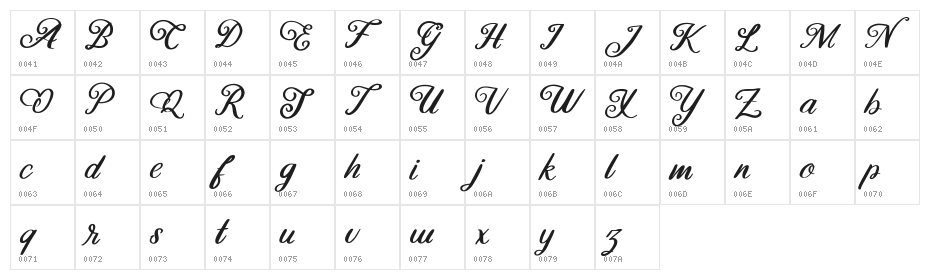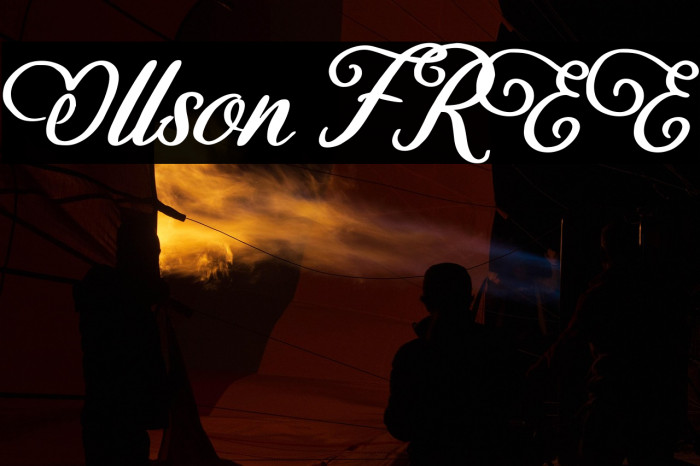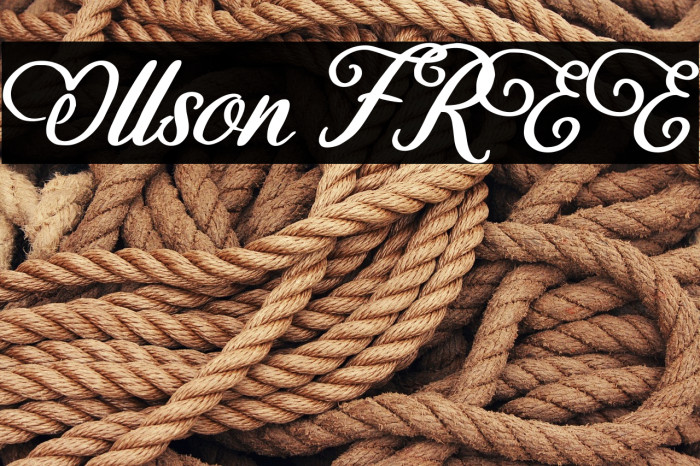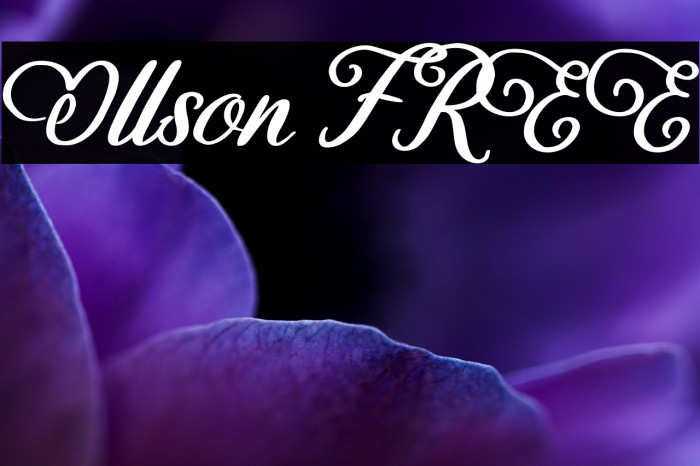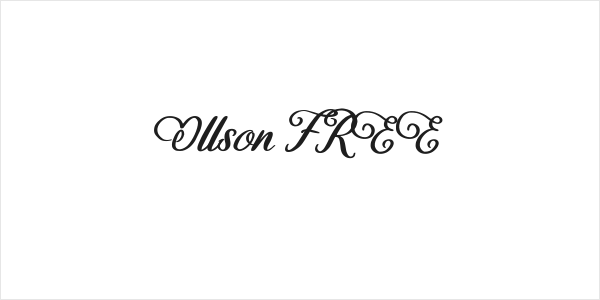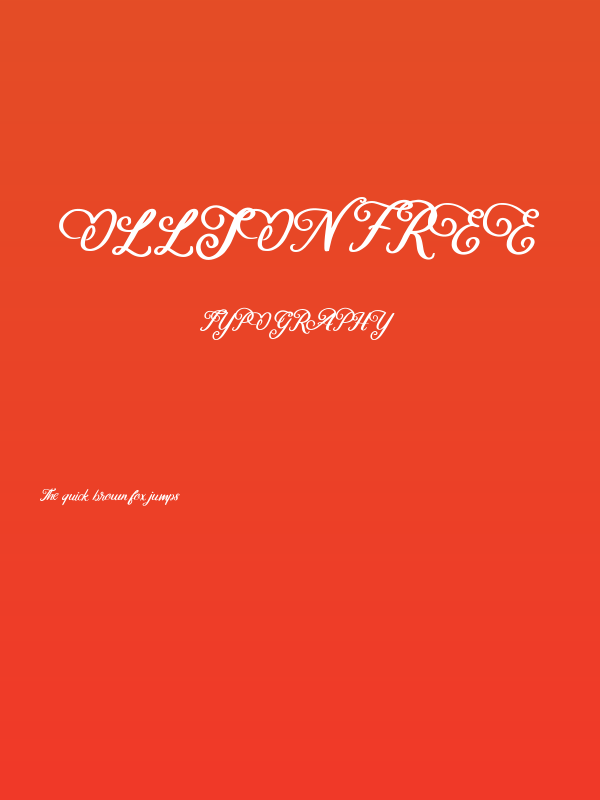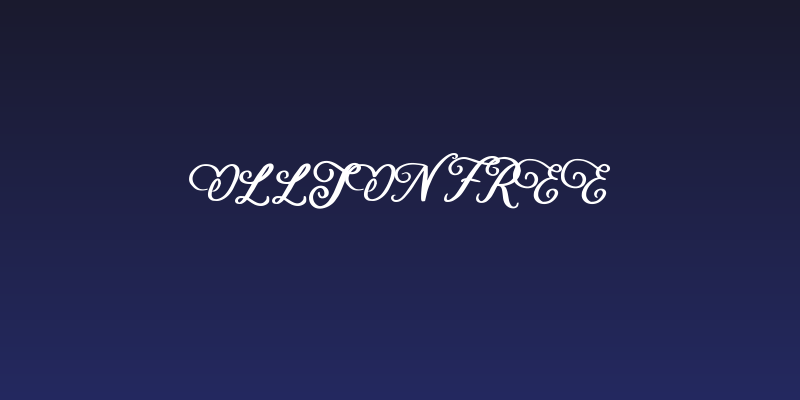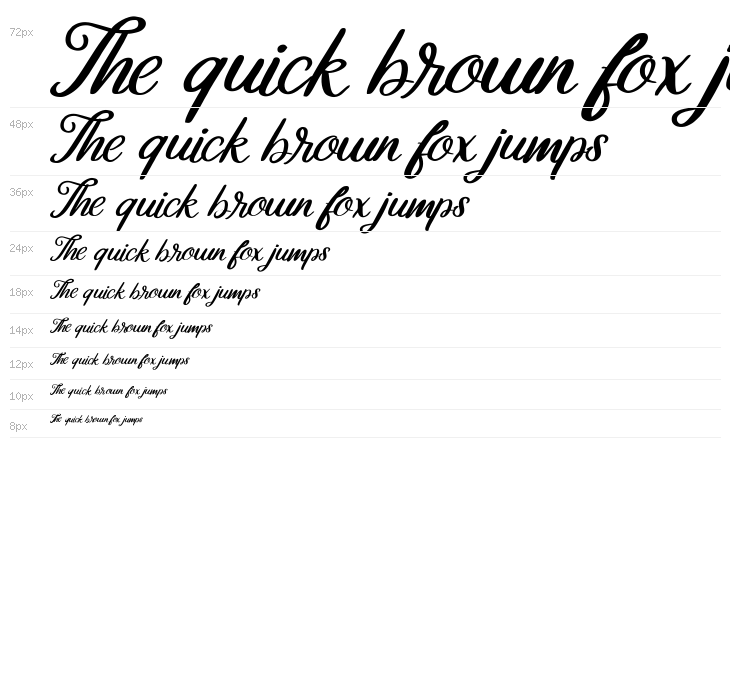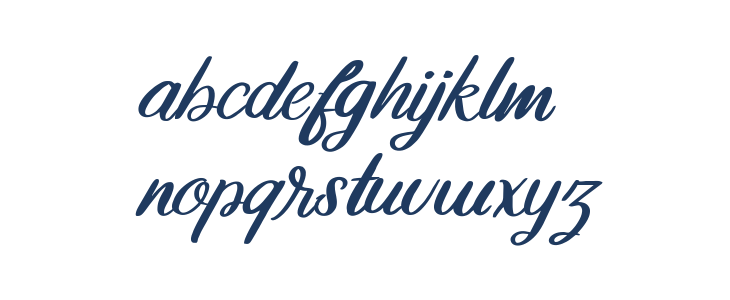
Ollson FREE Font
Ollson FREE Description
This font is a decorative script style that exudes elegance and sophistication. The characters are intricately designed with flowing curves and loops, giving it a handwritten appearance. The uppercase letters are particularly ornate, with elaborate swirls and flourishes that add a touch of grandeur. The lowercase letters maintain a consistent style, with smooth, connected strokes that enhance readability while retaining the decorative flair. The numbers and special characters are crafted with the same attention to detail, ensuring a cohesive look across all elements. This font is ideal for projects that require a touch of elegance and style, such as wedding invitations, luxury branding, and high-end product packaging.